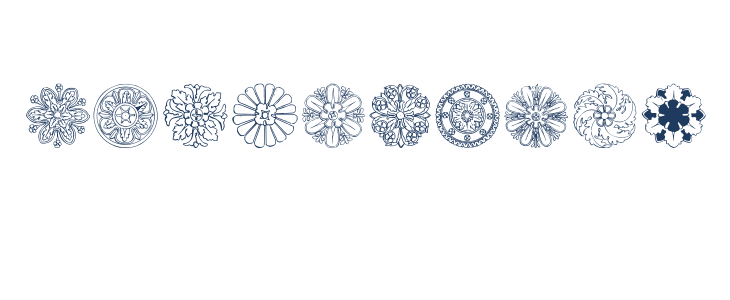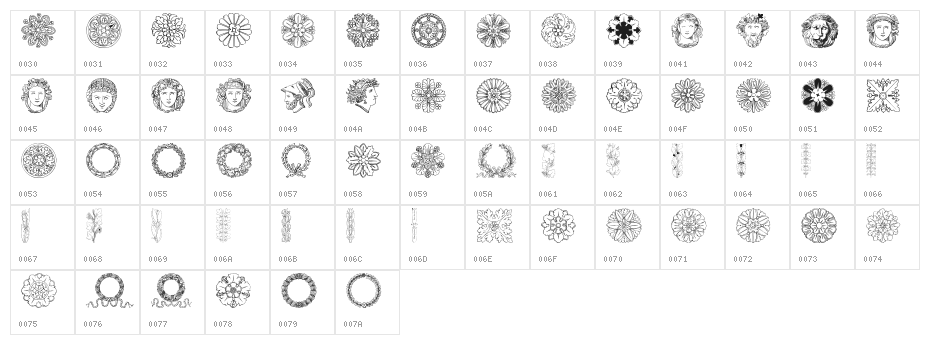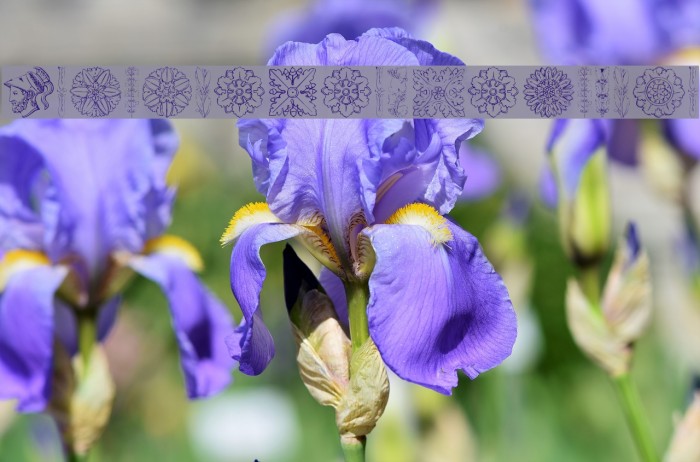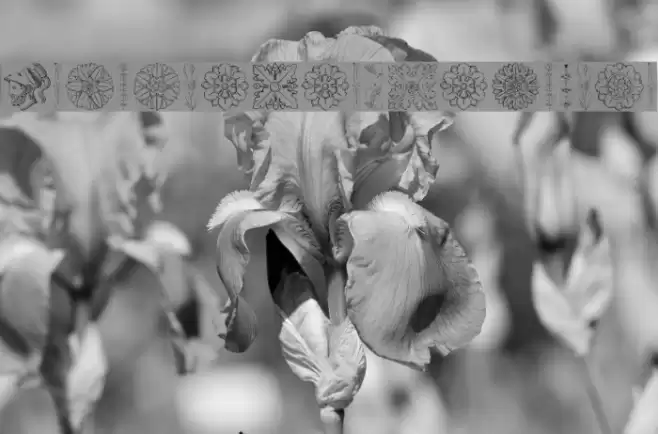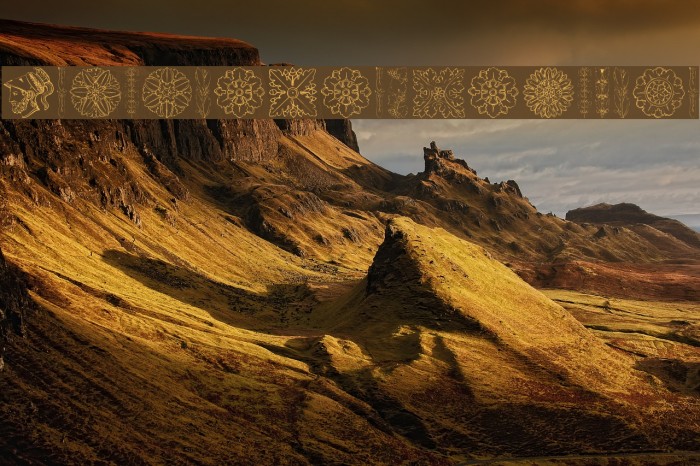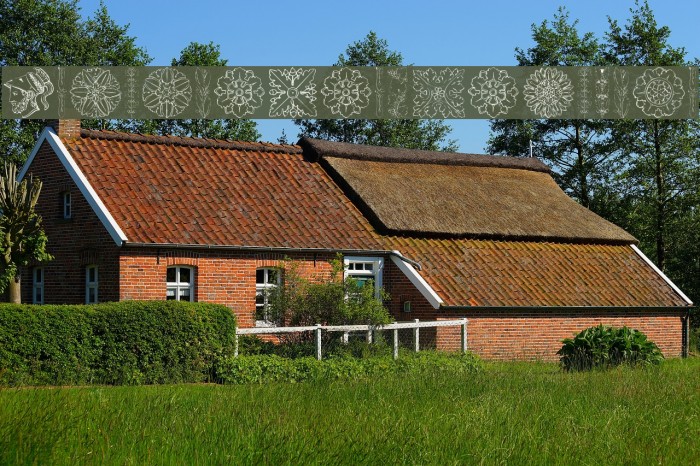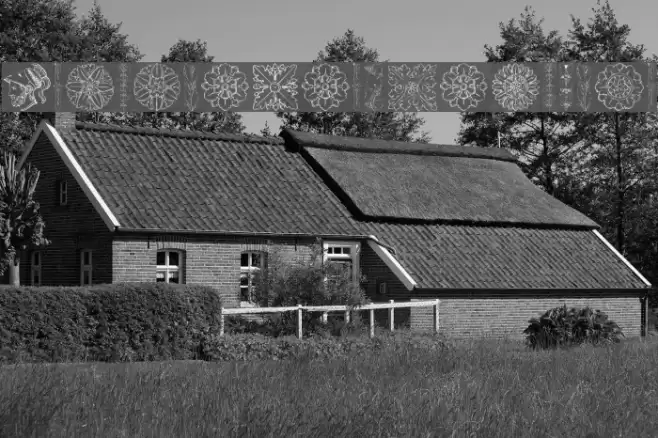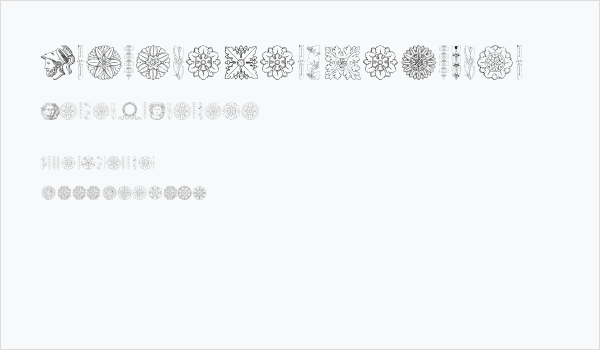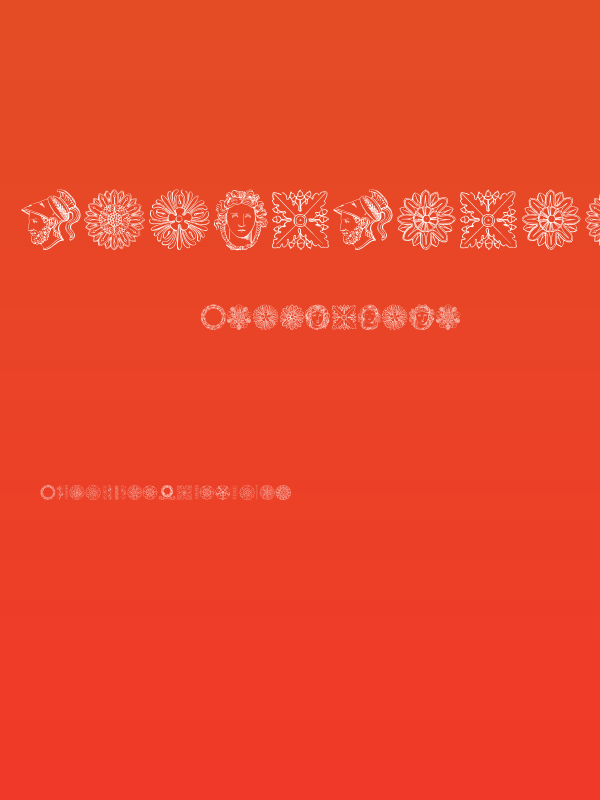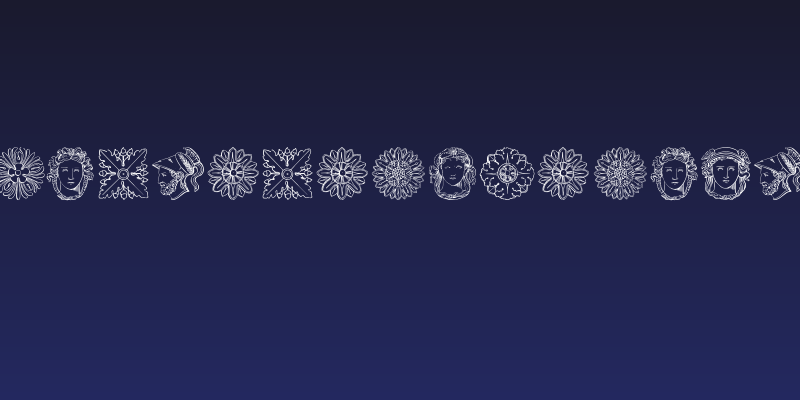
ImperioRomano Medium Font
ImperioRomano Medium Description
A highly decorative collection of intricate Roman-inspired illustrations, featuring classical faces, floral motifs, wreaths, and ornamental patterns, all rendered in fine line art with detailed shading and historical aesthetics.
| Overall Style | Vintage, Classical, Ornamental |
| Use Case | Decorative elements, Borders, Illustrative accents, Logos |
| Proposed Projects | Historical posters, book covers, certificates, invitations, branding for luxury or heritage products, educational materials. |